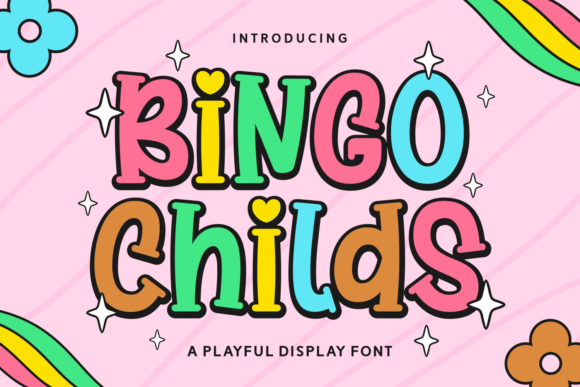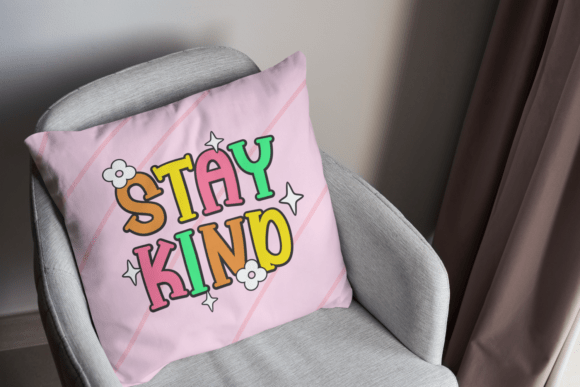
Bingo Childs Font
Bingo Childs is a fun and vibrant, playful display font that bursts with personality and charm. Its bold, rounded letterforms, accented with whimsical curves and quirky details, make it perfect for designs that radiate happiness and energy. Ideal for children’s projects, playful logos, bright packaging, or eye-catching social media graphics, this font delivers an approachable and cheerful vibe.
With multilingual support and a versatile structure, Bingo Childs is your go-to typeface for creating designs that are as colorful and lively as your imagination.